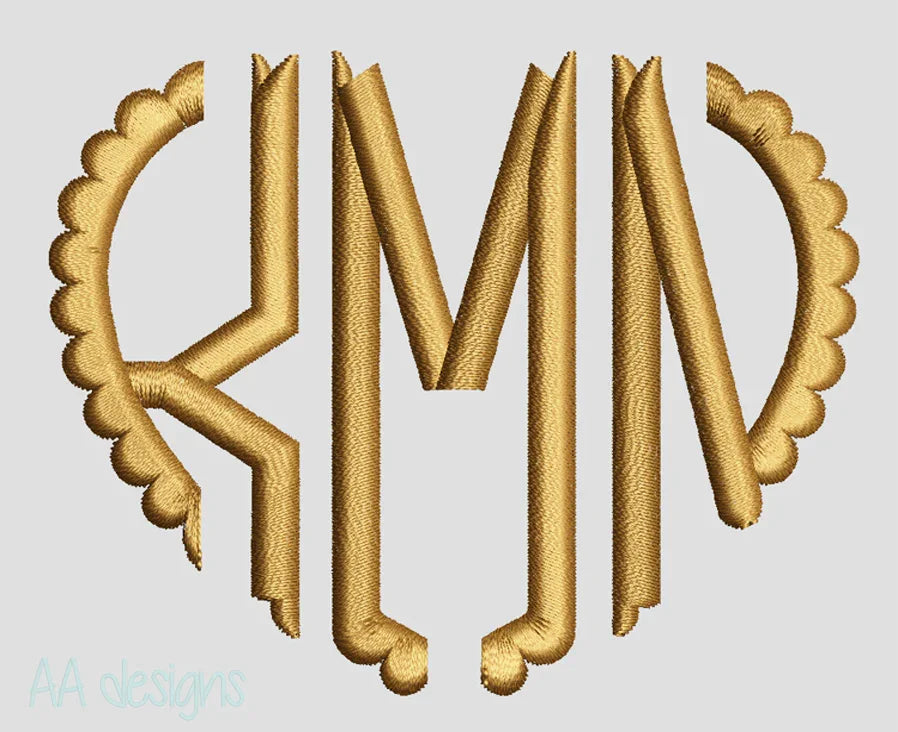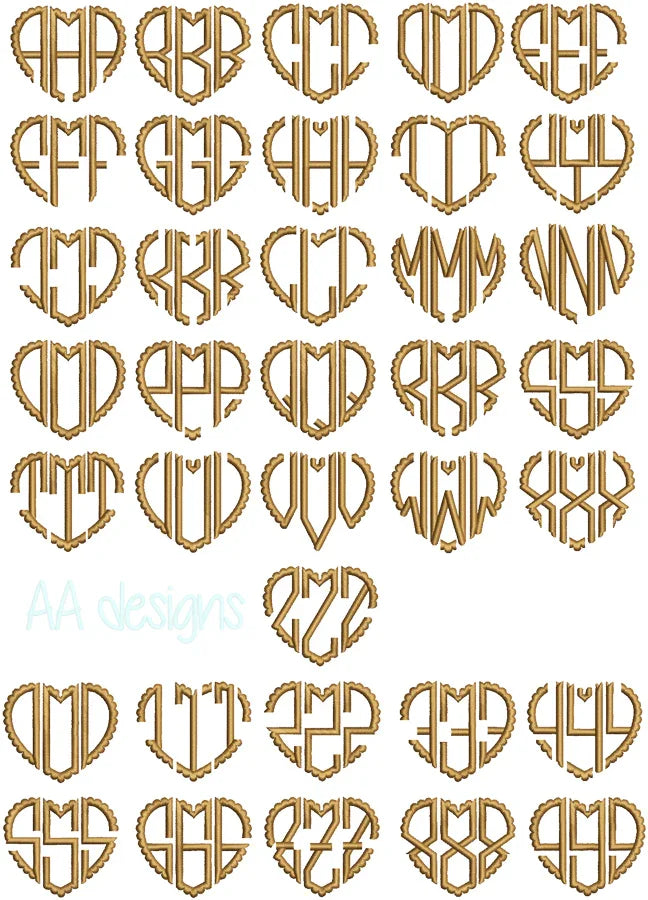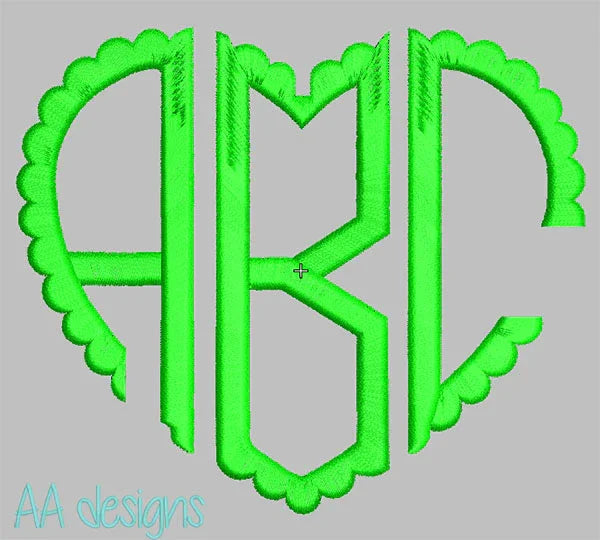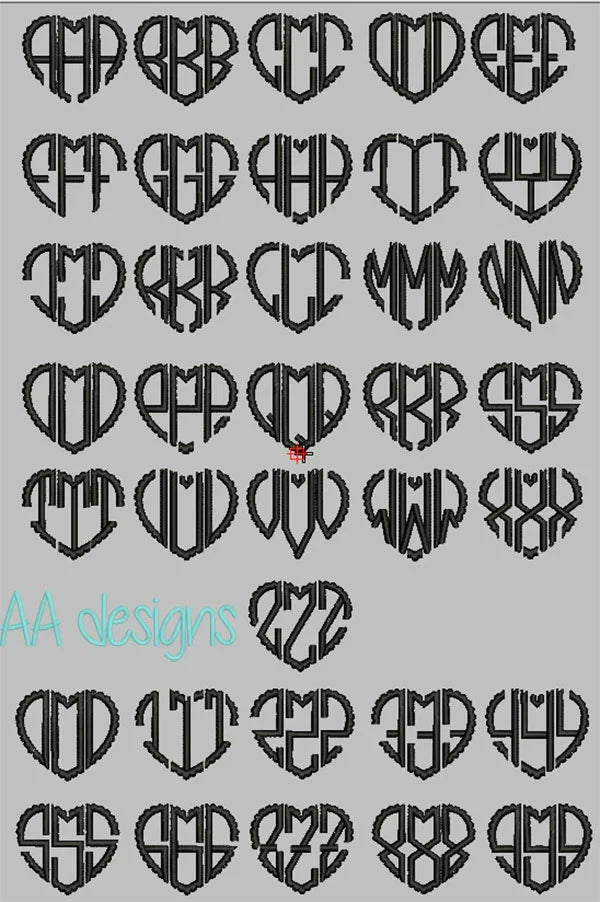
Scalloped heart monogram embroidery digital font. Scallop embroidery monogram. BX file also
Scalloped heart monogram embroidery digital font
This font comes with letters in 3 sizes, Center, Left and Right, 0-9